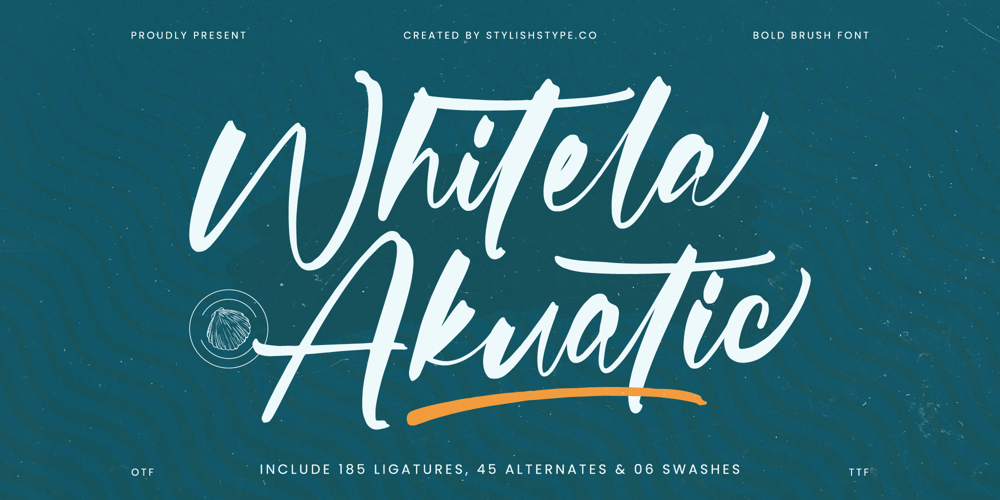
Whitela Akuatic
Whitela Akuatic font
Whitela Akuatic Font Family was designed by Heru Utama Putra and published by Stylishtype Studio. Whitela Akuatic contains 2 styles and family package options. Whitela Akuatic – Bold Brush Font , from Stylishtype., Suitable for any projects such as: logos, branding projects, homeware designs, product packaging, mugs, quotes, posters, shopping bags, t-shirts, book covers, name card, invitation cards, greeting cards, label, photography, watermark, special events, and all your other luxury and beautiful projects that need a Luxury Script taste.